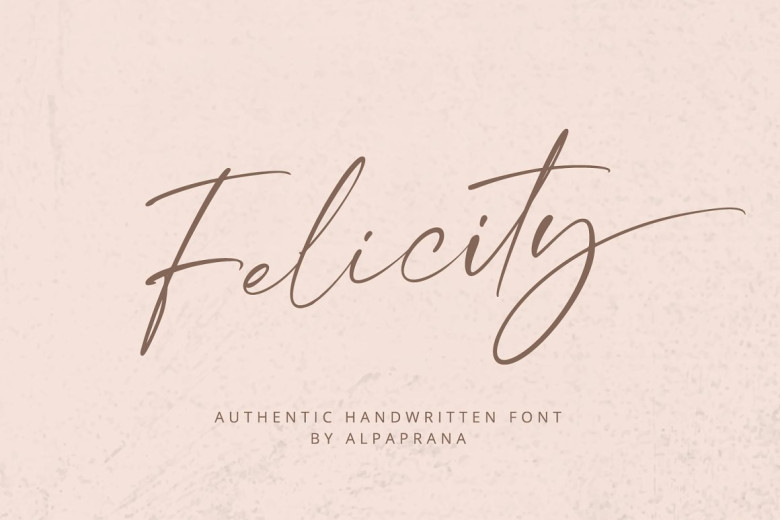
Felicity Font
Felicity is a charmingly handwritten font with real and casual feels, It can be used extensively for Branding, Logo Design, Lettering, Logotype, Clothing, Poster, magazine, packaging, posters, shopping bags, t-shirts, book covers, photography, special events and other design projects.
Felicity Handwritten Font